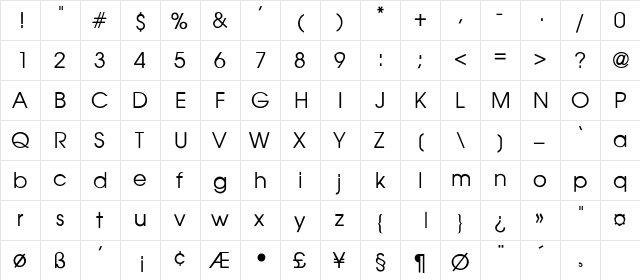
Gardenzi - Thin Regular
Design Context for Gardenzi - Thin Typeface
Gardenzi - Thin is a composed and adaptable typeface that performs quietly and consistently across a wide range of design contexts. Its slender proportions lend an understated elegance to any composition.
Pro Tip: Use Gardenzi - Thin in both headline and body roles to test its range before committing to a single application.